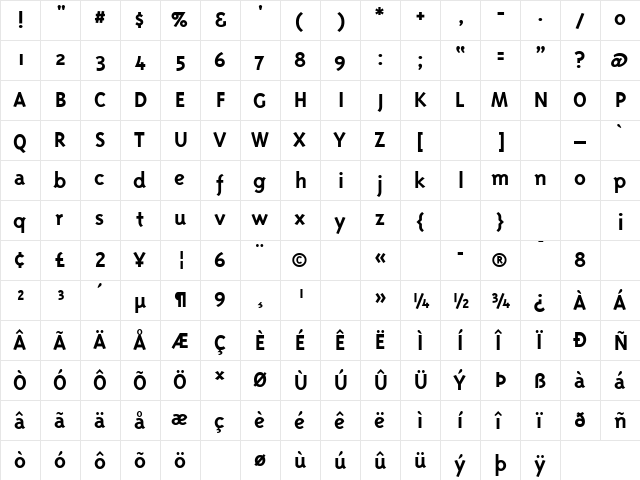
TriplexBold Regular
Design Context for TriplexBold Typeface
TriplexBold offers clean, dependable letterforms without strong stylistic allegiance, making it a practical choice for designers who need flexibility. The heavy weight commands attention and anchors typographic hierarchies.
Pro Tip: Use TriplexBold in both headline and body roles to test its range before committing to a single application.